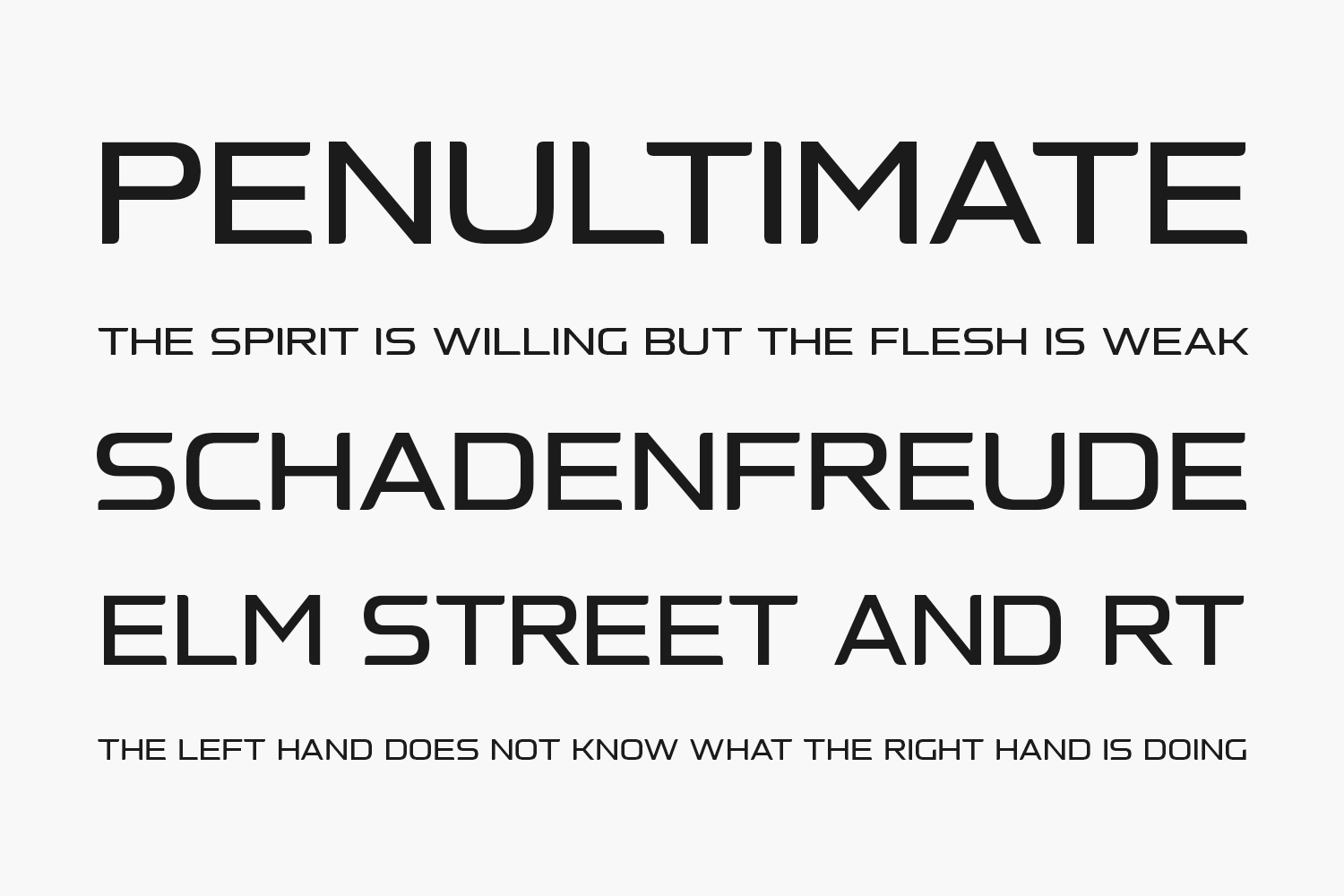
Nebulosa Free Font Family has been designed for Graviton Font Foundry by Pablo Balcells in 2020. It is a futuristic, slightly extended sans serif typeface with semi-rounded endings that provide a softened aesthetic without losing its solidity. Nebulosa has been conceived to be most suitable for logos, headlines, and display design pieces as well as short-length text blocks. Nebulosa Free Font Family is a demo and free for personal use only. Please purchase the full version for commercial use.
Nebulosa Display Solid The quick brown fox jumps over the lazy dog
Nebulosa Display Stencil The quick brown fox jumps over the lazy dog